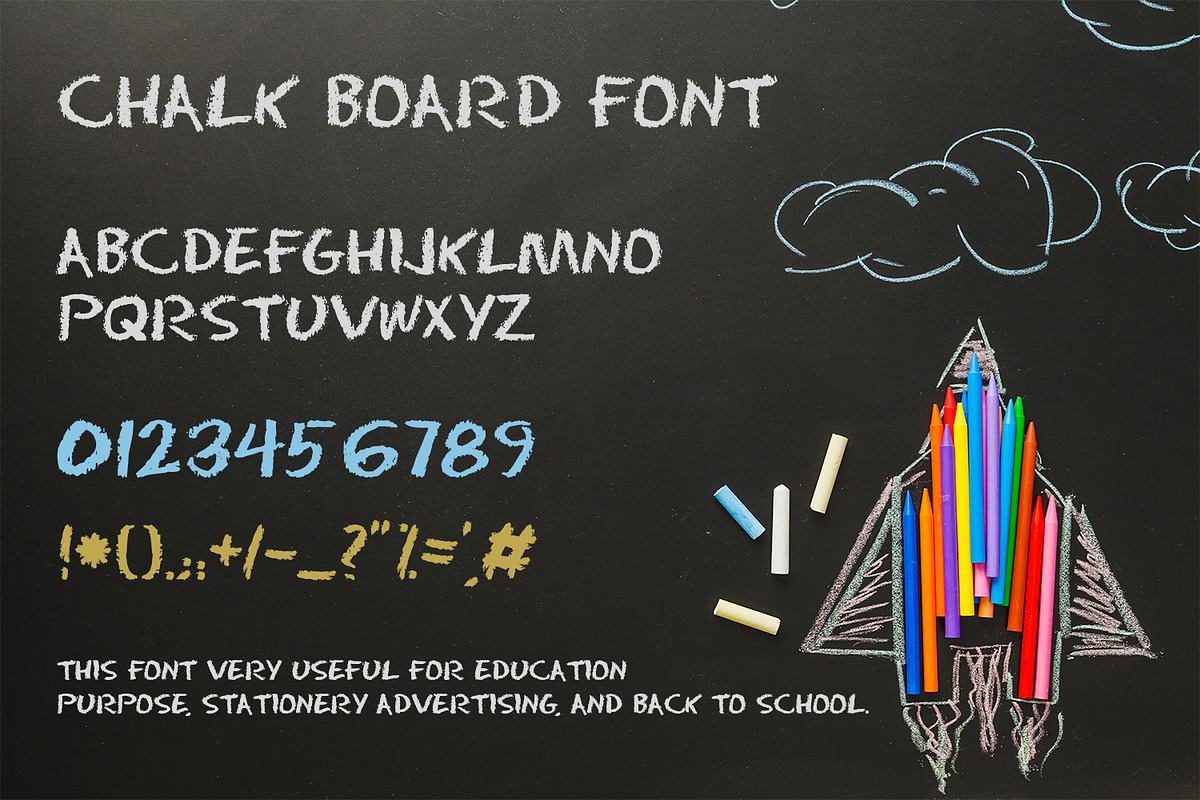
Chalk Board Font Free Download is a playful and textured typeface that mimics the look of handwritten chalk on a school blackboard. Ideal for classroom materials, kids' posters, café menus, DIY crafts, and back-to-school promotions, this font brings a casual, fun, and nostalgic vibe to any design. Its rough, hand-drawn edges make it feel authentic and approachable.
Using the Chalk Board Font Free Download adds personality and charm to your typography. Whether you’re designing for educational content or fun, informal projects, this font helps create a warm and friendly tone that grabs attention while staying easy to read.